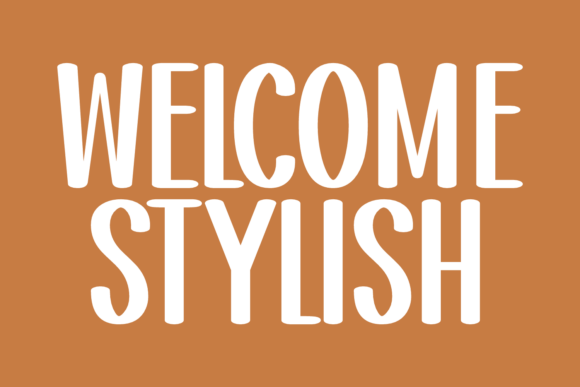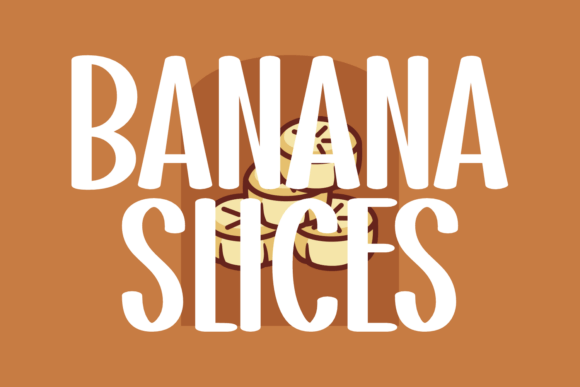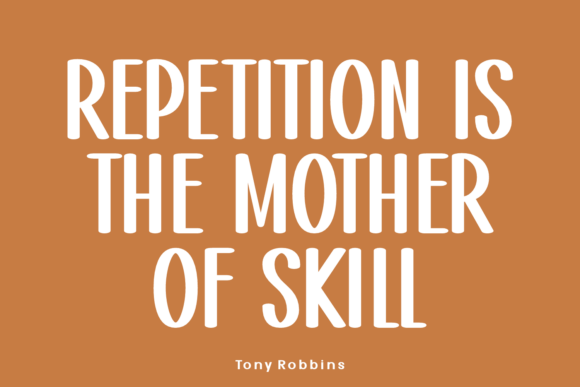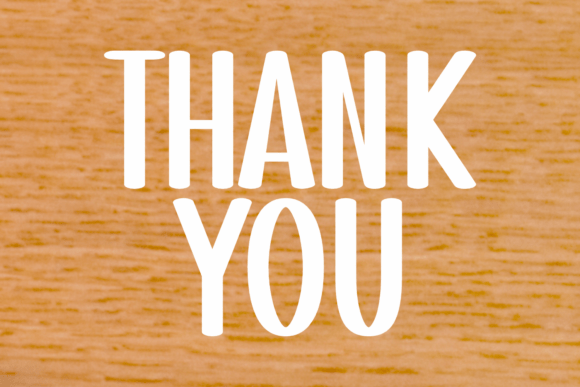
Meet the Fruitful Font that’s Sweeping the Design World: Banana Bogart Font
Have you ever stared at a blank page, waiting for inspiration to strike? That’s exactly what happened to me when I discovered the captivating Banana Bogart Font. Its playful and retro essence immediately caught my eye, and I knew I had to dive deeper. This dynamic display font is more than just a pretty face; it’s a versatile tool that can add a touch of whimsy to any design project.
Banana Bogart Font is a game-changer for designers, offering a unique blend of style and originality. Its hand-drawn characters and bubbly contours make it a standout choice for branding, logos, and marketing materials. Whether you’re creating stickers, quotes, or designing a children’s book cover, this bold typeface is sure to make a statement. With its precision-crafted lowercase and uppercase letters, numbers, and punctuation marks, Banana Bogart Font is a valuable addition to any designer’s toolkit.
Banana Bogart Font Key Features
- Unique Characteristics: The font features a unique, hand-drawn style with subtle irregularities and imperfections, giving it a distinctive, human touch.
Designer Review: Banana Bogart Font
Overall, I’d say the Banana Bogart Font has a unique and playful vibe that could work well for certain projects. ✨ The font’s bold and quirky personality is reminiscent of 60s and 70s typography, which could be perfect for designs that need a retro touch.
- The font’s x-height is well-balanced, making it easy to read in both body copy and headings.
- The letterforms have a nice, fluid feel to them, which helps to create a sense of movement and energy.
- The font’s range of weights and styles offers a lot of flexibility for designers.
However, I do have some concerns about the font’s limitations. ⚠️ While the Banana Bogart Font is great for playful, casual designs, it may not be the best choice for more formal or professional projects. The font’s bold and quirky personality may come across as immature or unpolished in certain contexts.
The Banana Bogart Font is a fun and unique addition to any designer’s toolkit. While it may not be suitable for every project, it’s definitely worth considering for designs that need a playful, retro vibe.
Banana Bogart Font is commonly used in:
1. Food and beverage branding
2. Retro-themed designs
3. Whimsical and playful designs